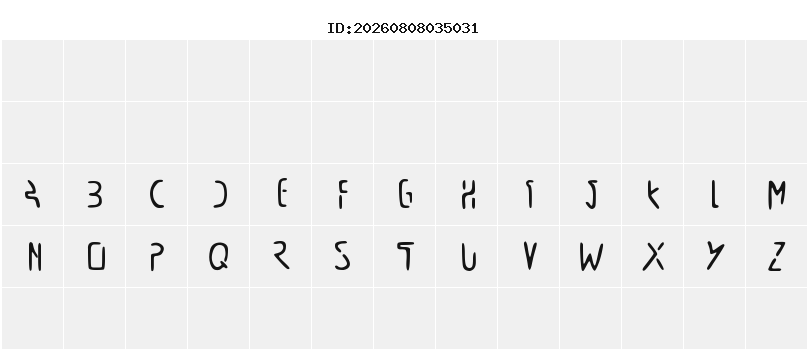
Probe BC.ttf is a modern, elegant sans-serif font designed for ultimate readability and visual harmony. Perfect for branding, headlines, web design, and print materials.